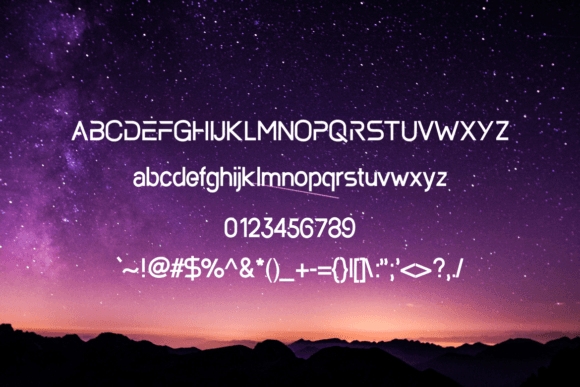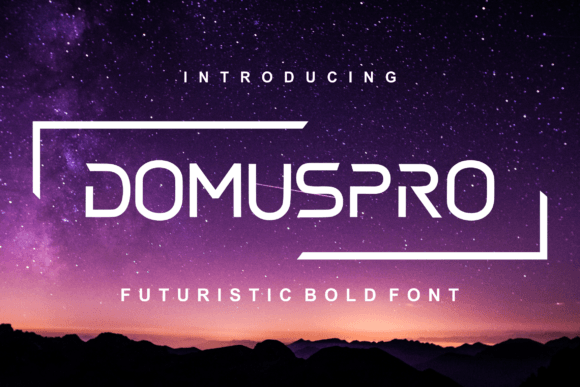
Introducing Domus Pro Font: A Fun and Futuristic Display Font
Are you tired of using the same old fonts for your designs? Look no further than Domus Pro, a fun and futuristic display font that’s sure to take your projects to the next level. With its quirky and unique style, Domus Pro is perfect for a wide spectrum of applications, from branding and advertising to packaging and digital media.
What Makes Domus Pro Special?
Domus Pro is a display font that’s all about having fun. Its futuristic design is inspired by the latest trends in technology and space exploration, giving it a fresh and modern feel. The font features a range of unique characteristics, including:
- Quirky letterforms: Each letter in Domus Pro has its own unique personality, with bold lines and playful curves.
- Futuristic feel: The font’s futuristic design makes it perfect for projects that require a cutting-edge look and feel.
- High legibility: Despite its quirky design, Domus Pro remains highly legible, even at smaller sizes.
Uses for Domus Pro Font
Domus Pro is a versatile font that can be used in a wide range of applications, including:
- Branding and advertising: Use Domus Pro to create eye-catching logos, billboards, and ad campaigns that grab attention.
- Packaging design: Add a touch of fun and personality to your product packaging with Domus Pro.
- Digital media: Use Domus Pro to create engaging social media graphics, videos, and animations.
- Web design: Add a futuristic touch to your website with Domus Pro, perfect for tech startups and innovative companies.
Why Choose Domus Pro?
With so many fonts to choose from, why should you choose Domus Pro? Here are just a few reasons:
- Unique style: Domus Pro offers a unique and distinctive style that’s sure to set your projects apart.
- High-quality design: Domus Pro is designed to high standards, with careful attention to detail and craftsmanship.
Tips for Using Domus Pro
To get the most out of Domus Pro, here are a few tips:
- Experiment with sizes: Domus Pro looks great at a range of sizes, from large display fonts to smaller body text.
- Play with colors: The font works well with a range of colors, from bright and bold to more muted and subtle.
- Mix and match: Try combining Domus Pro with other fonts to create a unique and eye-catching look.
Domus Pro is a fun and futuristic display font that’s perfect for designers and crafters looking to add a touch of personality to their projects. With its quirky letterforms, futuristic feel, and high legibility, Domus Pro is sure to become a go-to font for a wide range of applications. So why not give it a try and see what amazing things you can create?